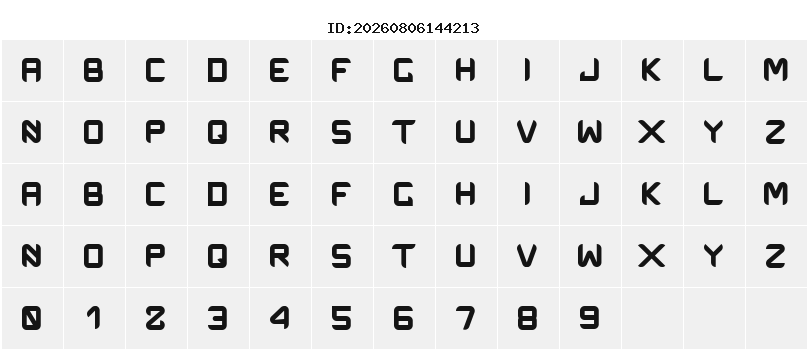
One Man Army Preview
• Font Name: One Man Army
• Full Font Name: One Man Army
About One Man Army.ttf
One Man Army.ttf is a modern, elegant sans-serif font designed for ultimate readability and visual harmony. Perfect for branding, headlines, web design, and print materials.